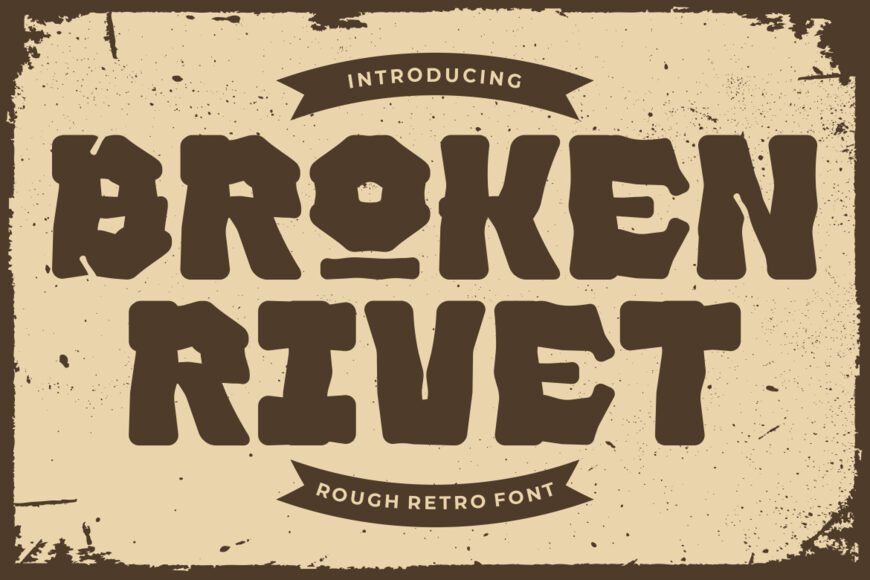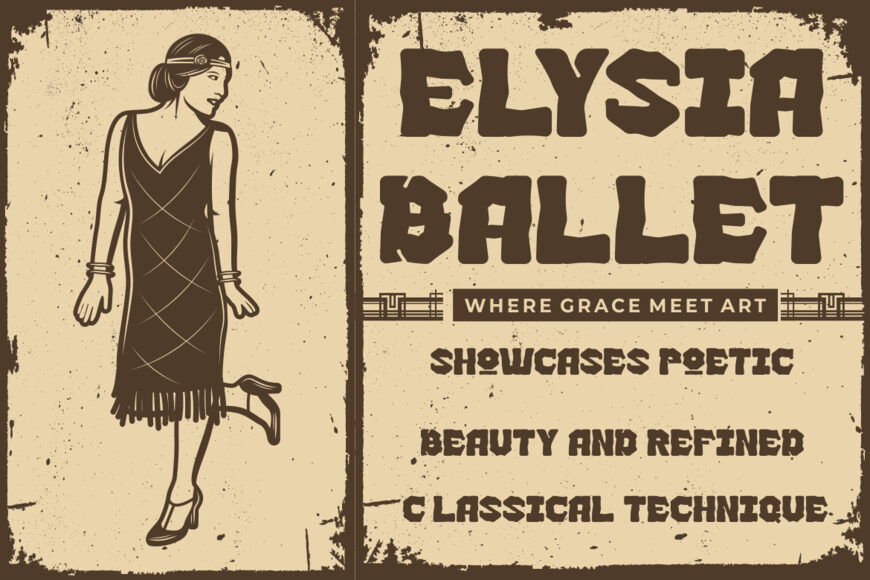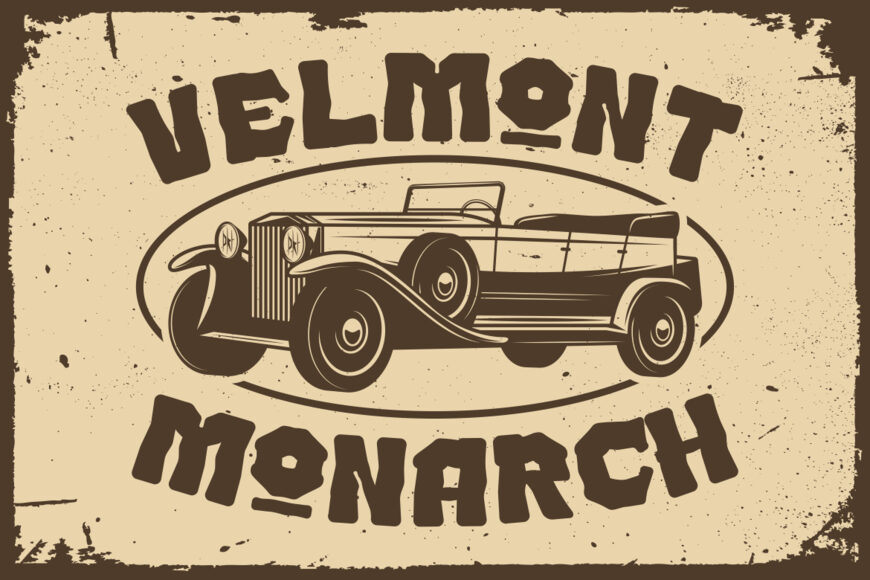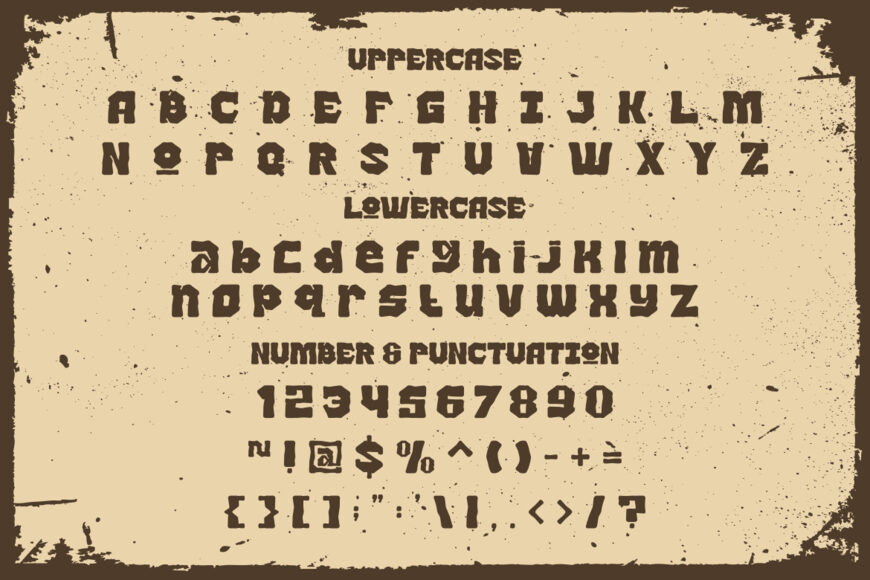
Broken Rivet Font
Broken Rivet is a rough retro typeface with a bold industrial feel, drawing inspiration from vintage workshops, machinery, garages, and traditional craftsmanship. Its heavy, compact letterforms feature blocky shapes, worn edges, chipped corners, and distressed breaks for an authentic mechanical character.
Despite its rugged texture, the font remains highly legible and makes a strong impact in large-scale designs. It suits automotive branding, restoration businesses, custom vehicle communities, and heritage-style projects. Use Broken Rivet for logos, advertisements, packaging, posters, covers, signs, stickers, labels, merchandise, greeting cards, crafts, promotional designs, and film titles that need a durable vintage look.